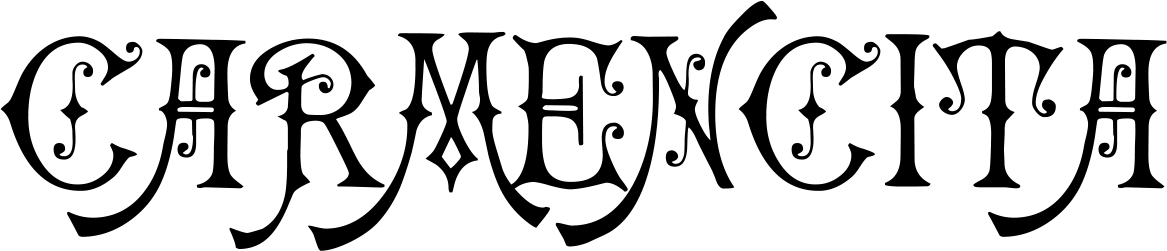
Carmencita Font
Today’s introduction will level up your texts! This font is called Carmencita and is a medieval font. It is very fancy and elegant and will convey this look to your text perfectly. You can use it for any classy texts and headlines. Carmencita contains a set of alphabetical uppercase letters.
True Type and Open Type versions of the same fancy Victorian display font